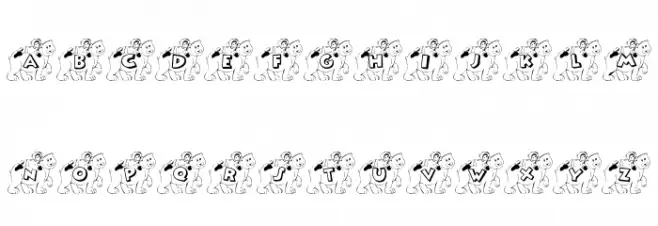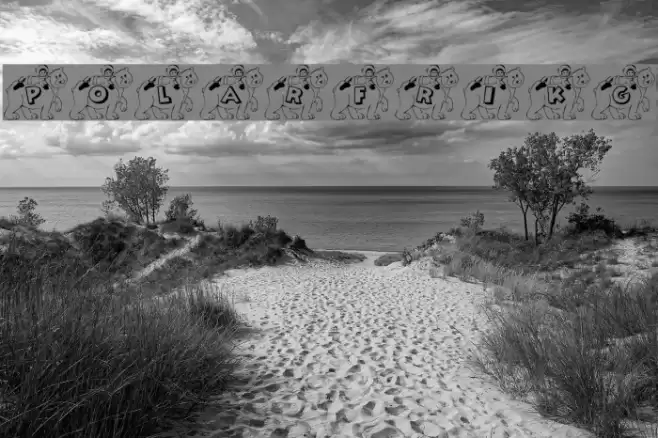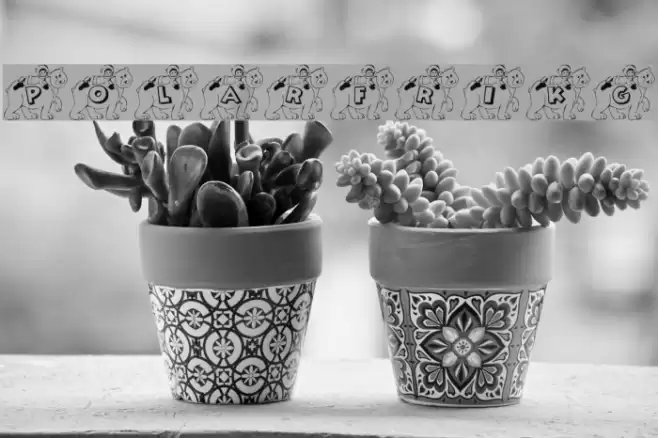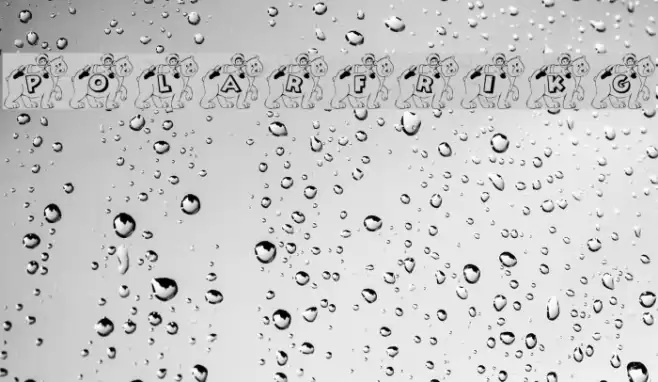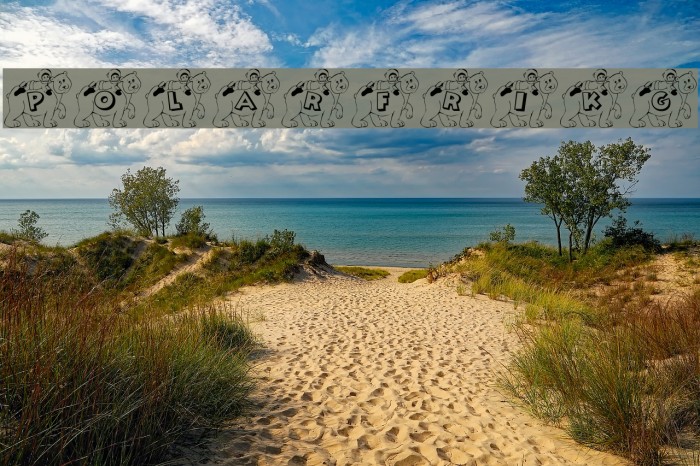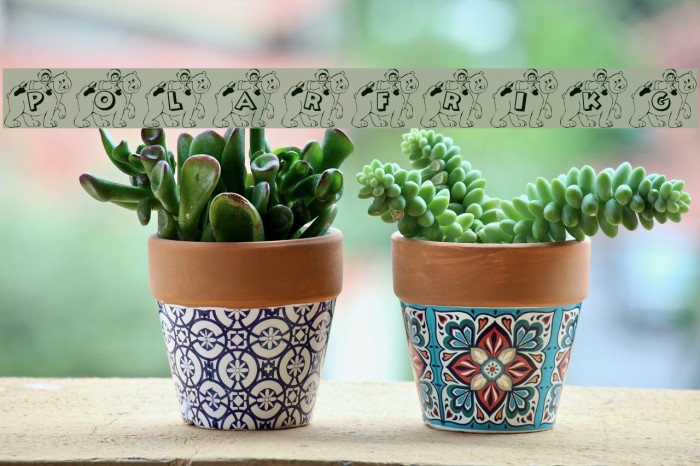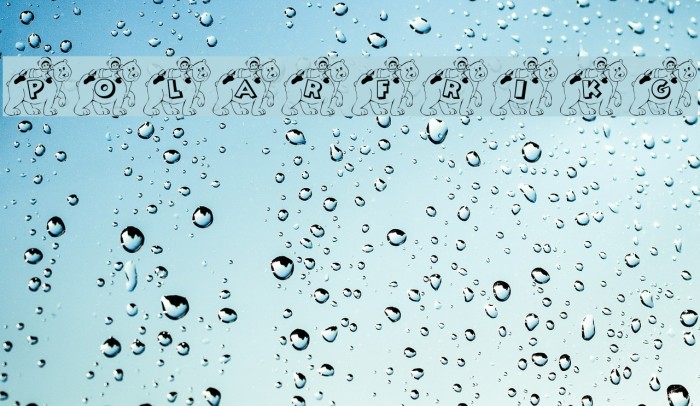
POLARFRI_KG
This playful and whimsical font features characters embedded within cartoon-like figures, adding a unique and entertaining element to the design. Each letter is creatively integrated into a character, providing a sense of movement and personality. The font is highly decorative, making it ideal for projects that require a fun and engaging visual appeal. The characters are bold and well-defined, ensuring readability while maintaining their artistic flair. This font is perfect for children's projects, playful branding, or any creative endeavor that seeks to capture attention with its distinctive style.
A whimsical font with letters embedded in cartoon characters, perfect for playful designs.
- Proposed Projects: Ideal for children's books, playful branding, party invitations, and creative posters.
- Overall Style: Playful, Whimsical, Decorative
- Use Case: Headlines, Logos, Posters